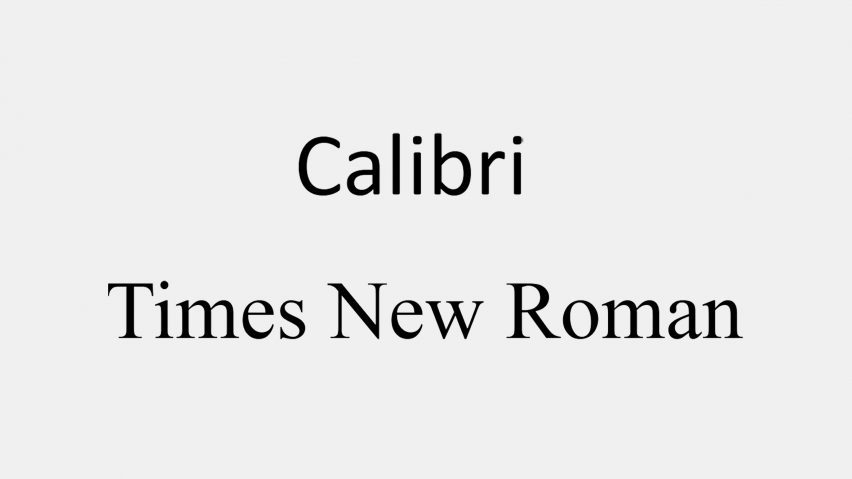
US drops Calibri typeface from official usage citing “degradation” of correspondence
The US State Department has ended the use of the Calibri sans-serif typeface for its communications, re-instating the use of Times New Roman to “return to tradition”. Designers and communications researchers weigh in.
Yesterday, a directive for the US State Department to stop using the Calibri typeface in its correspondence went into effect, requiring the staff, which includes diplomats, to switch to Times New Roman.
The change comes after the secretary of state Marco Rubio released a memo called Return to Tradition: Times New Roman 14-Point Font Required for All Department Paper, obtained by the New York Times.
It comes two years after the department shifted away from using Times New Roman, citing “accessibility” as a reason, according to a New York Times report at the time. Some sans-serif typefaces, such as Calibri, can be easier for people to read.
However, Rubio called the shift “wasteful” and too different from the department’s letterhead.
“Switching to Calibri achieved nothing except the degradation of the department’s official correspondence,” he said, adding that serif typefaces were more applicable in instances of “formality” and “ceremony”.
Calibri “designed to facilitate reading” on computers
Speaking to news organisation BBC, Calibri’s Dutch designer Lucas de Groot called the decision “sad and hilarious”.
“Calibri was designed to facilitate reading on modern computer screens – it was chosen to replace TNR – the typeface that Rubio wants to go back to now,” de Groot told the BBC.
Times New Roman had been the official typeface of the department since 2004, and before that it was Courier New.
The shift lends itself towards more than decorum, according to experts.
“Typography is never neutral,” Elon University assistant professor of communication design Shannon Zenner told Dezeen.
Zenner’s research with colleagues Katherine Haenschen and Jessica Collier has shown that “people attach political meaning to typefaces in surprisingly consistent ways.”
“This is consistent with what designers have long understood: type is deeply tied to personal and cultural identity,” Zenner said.
Design decisions now “pulled into partisan narratives”
According to Zenner, Calibri was chosen because it is more easily read by people with low vision.
“Reframing a functional accommodation as ideological shows how thoroughly design decisions have been pulled into partisan narratives,” she continued.
“We have found that Republicans tend to gravitate toward serif typefaces while Democrats lean toward sans-serif. The return to Times New Roman is therefore not simply a gesture toward professionalism.”
“It functions, intentionally or not, as a political signal in a landscape where visual cues perform a great deal of identity work.”